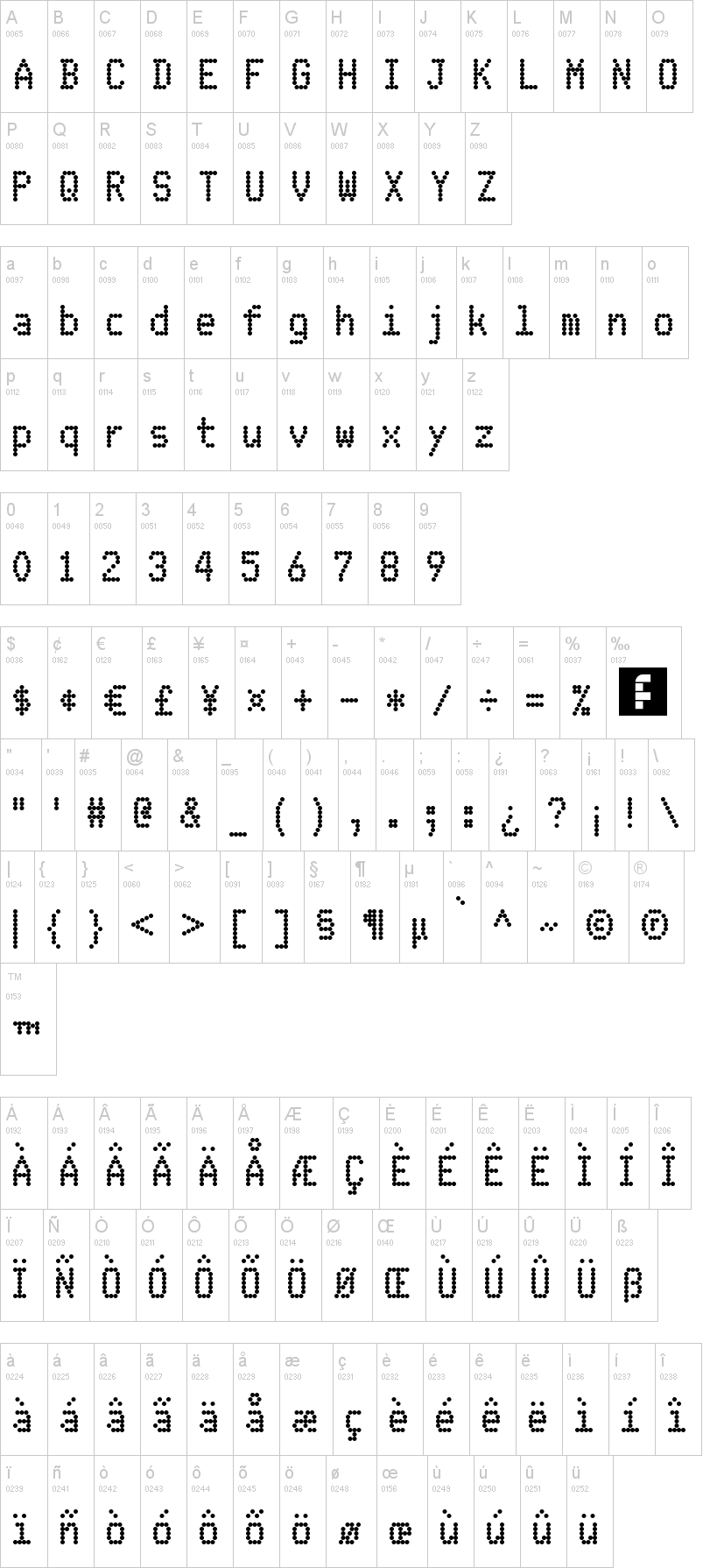
fs_blok_sc.ttffs_blok_mix.ttfNote of the authorFS Blok Mix is based on dot matrix typeface from receipts and was created using FontStruct http://fontstruct.fontshop.com